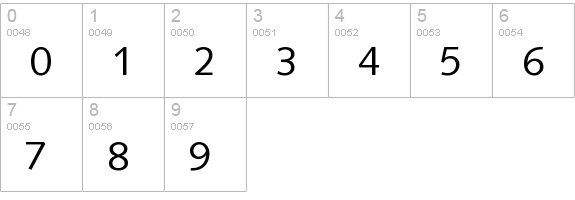
Facile SSi Font Details
Introducing Facile SSi, a stunning and versatile font that is sure to add a touch of elegance to any design project. With its sleek and modern lines, Facile SSi offers a contemporary twist on classic typography, making it perfect for both digital and print applications. This font boasts a unique combination of crisp, clean letterforms and subtle curves, creating a harmonious balance that is both eye-catching and easy to read. Its wide range of weights and styles, from thin and delicate to bold and impactful, allows for endless creative possibilities, ensuring that Facile SSi can effortlessly adapt to any design concept. But what sets Facile SSi apart from other fonts is its accessibility. This font is not only beautifully crafted, but it is also free to download. Yes, you read that right – completely free! You can easily obtain this font at FontsMarket.com, a trusted source for high-quality typefaces. Whether you're a professional designer looking to enhance your portfolio, a student working on a school project, or simply someone with a passion for typography, Facile SSi is the perfect addition to your font collection. Its versatility, elegance, and free availability make it a must-have font for anyone seeking to elevate their designs to new heights. So don't miss out on this incredible opportunity to enhance your creative projects with Facile SSi. Download it now at FontsMarket.com and unlock a world of possibilities with this exquisite font.